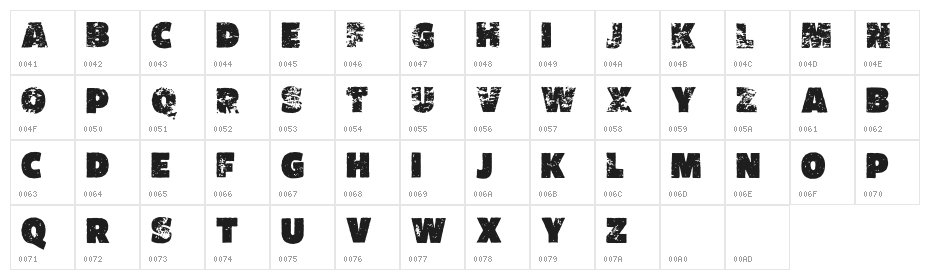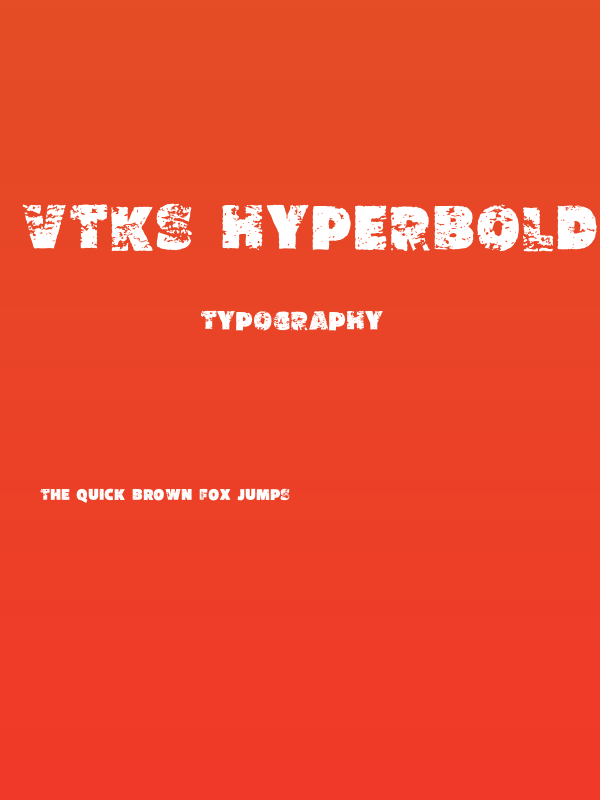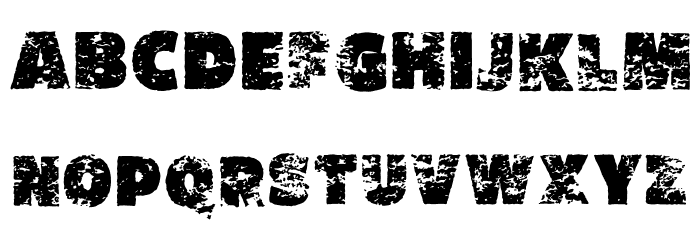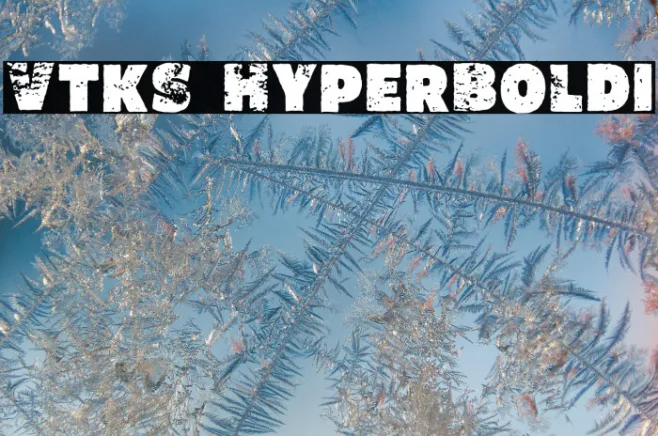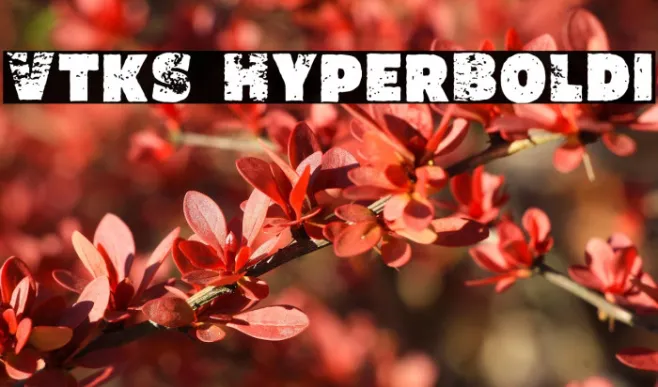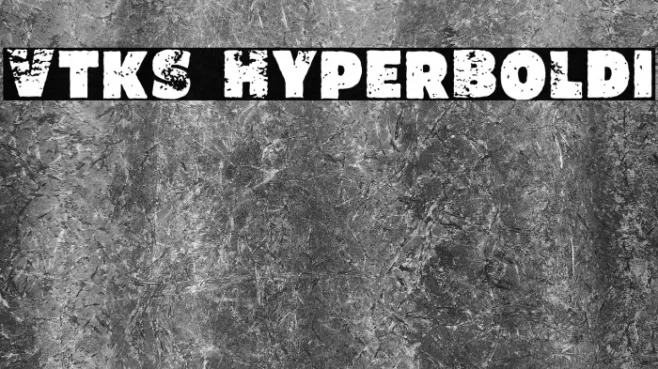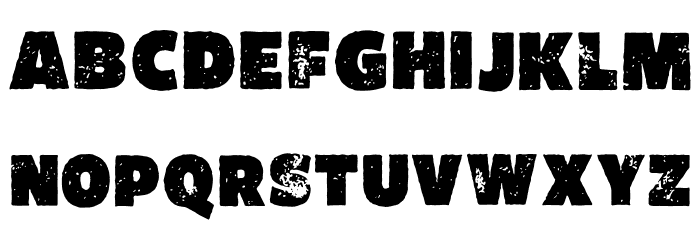
Vtks HyperBoldi Font
Vtks HyperBoldi Description
This font features a bold and distressed style, characterized by its rough, textured appearance. Each letter appears as if it has been weathered or eroded, giving it a gritty, urban feel. The uppercase and lowercase letters maintain a consistent weight, contributing to a cohesive look across the alphabet. The numerals and special characters share the same distressed aesthetic, ensuring uniformity throughout. This font's unique style makes it stand out, ideal for projects that require a bold statement or an edgy, artistic touch.
| Overall Style | Urban, Edgy, Artistic |
| Proposed Projects | Ideal for posters, album covers, streetwear branding, and urban-themed designs. |